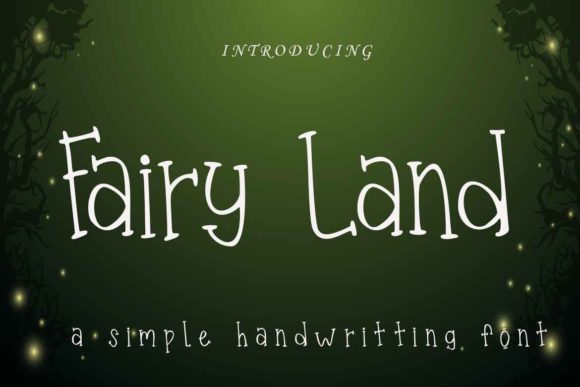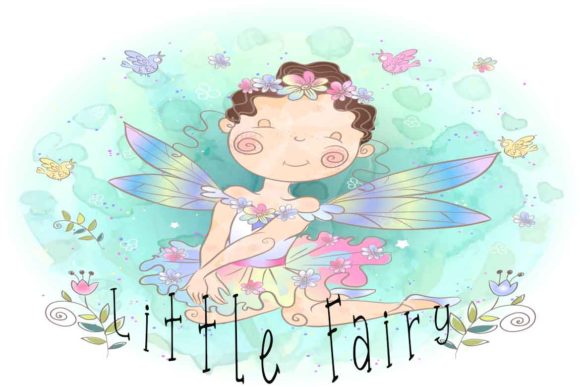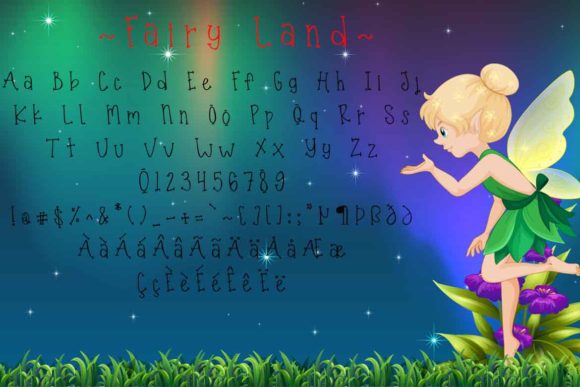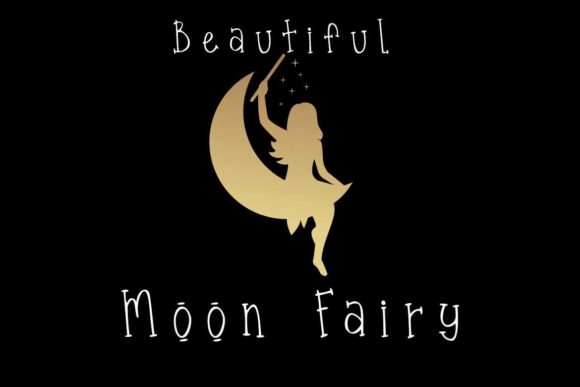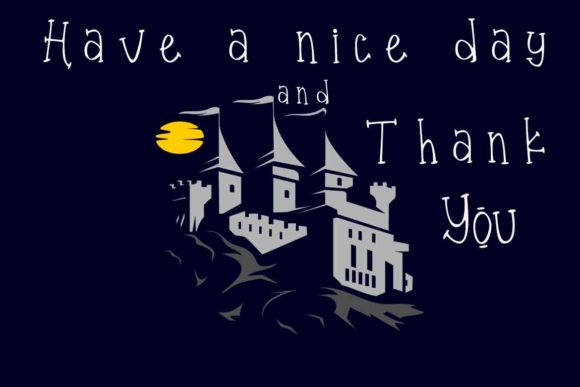
Fairy Land Font
About Fairy Land Font
Fairy Land is a cute and simple handwritten font. Its natural and unique style makes it incredibly fitting to a large pool of designs. The only limit is your imagination!